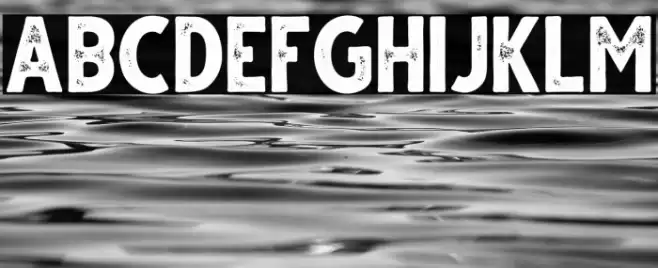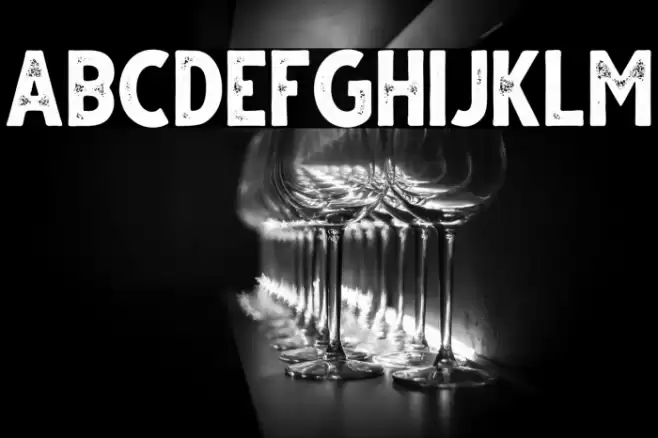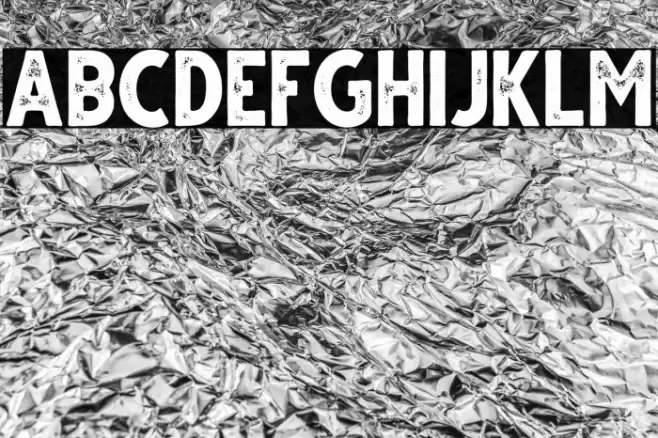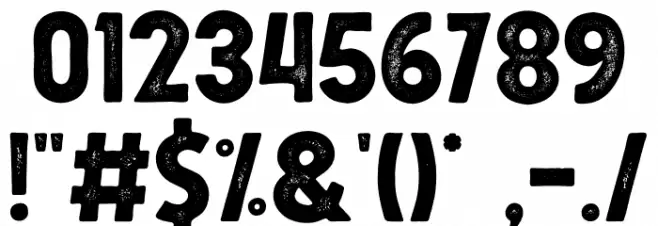
Gutter Rust Font
Gutter Rust Description
This font features a bold, distressed style that gives it a rugged, vintage appearance. The characters are thick and substantial, with a textured effect that mimics wear and tear, adding a sense of authenticity and age. The uppercase and lowercase letters maintain a consistent weight, while the numbers and special characters share the same distressed aesthetic. This font's boldness and unique texture make it stand out, ideal for projects that require a strong, impactful visual presence.
A bold, distressed font with a rugged, vintage look from Uncategorized fonts.
- Font: Gutter Rust
- Proposed Projects: Perfect for branding, posters, and designs that require a vintage or industrial feel.
- Overall Style: Vintage